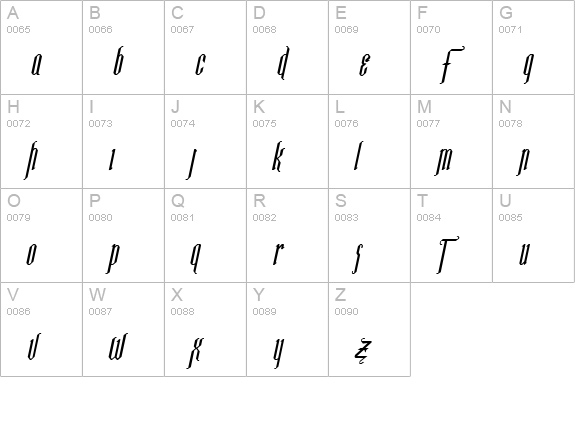
Ipswich Bold Italic is a strong, high-contrast, italic variant in the Ipswich typeface family \xE2\x80\x94 well suited to headlines, attention-grabbing titles, and strong calls-to-action.
Introducing Ipswich Bold Italic, a stunning font that effortlessly combines elegance and modernity. With its bold and italicized strokes, this typeface exudes a sense of confidence and sophistication. Ipswich Bold Italic is perfect for those seeking a font that stands out and grabs attention. Whether used for headlines, logos, or branding materials, this versatile typeface adds a touch of flair to any design project. But what makes Ipswich Bold Italic even more enticing is that it is available for free download at FontsMarket.com. Yes, you read that right – this remarkable font can be yours at no cost. FontsMarket.com, a trusted online platform for all your font needs, offers this font with a simple click of a button. With its user-friendly interface and extensive font library, FontsMarket.com ensures that designers and creatives can access a wide range of high-quality fonts, including Ipswich Bold Italic, without breaking the bank. So, if you're looking for a premium font that is both visually striking and free to use, look no further than Ipswich Bold Italic. Download it today from FontsMarket.com and elevate your designs to new heights.